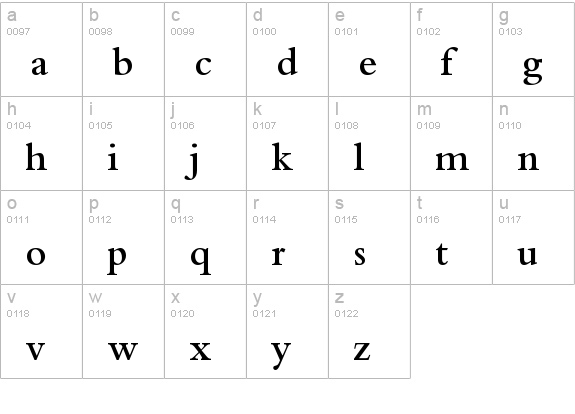
Kuriakos SSi Semi Bold is a strong, high-contrast variant in the Kuriakos typeface family \xE2\x80\x94 well suited to headlines, attention-grabbing titles, and strong calls-to-action.
Kuriakos SSi Semi Bold font is a striking and modern typeface that exudes confidence and style. With its bold strokes and clean lines, this font commands attention and adds a touch of sophistication to any design project. Whether you're creating a poster, logo, or website, Kuriakos SSi Semi Bold is sure to make a lasting impression. The best part? Kuriakos SSi Semi Bold font is available for free download at FontsMarket.com! That's right, you can easily access this elegant font and use it in your personal or commercial projects without any cost. So why wait? Elevate your designs with Kuriakos SSi Semi Bold font today and make a statement with every letter.